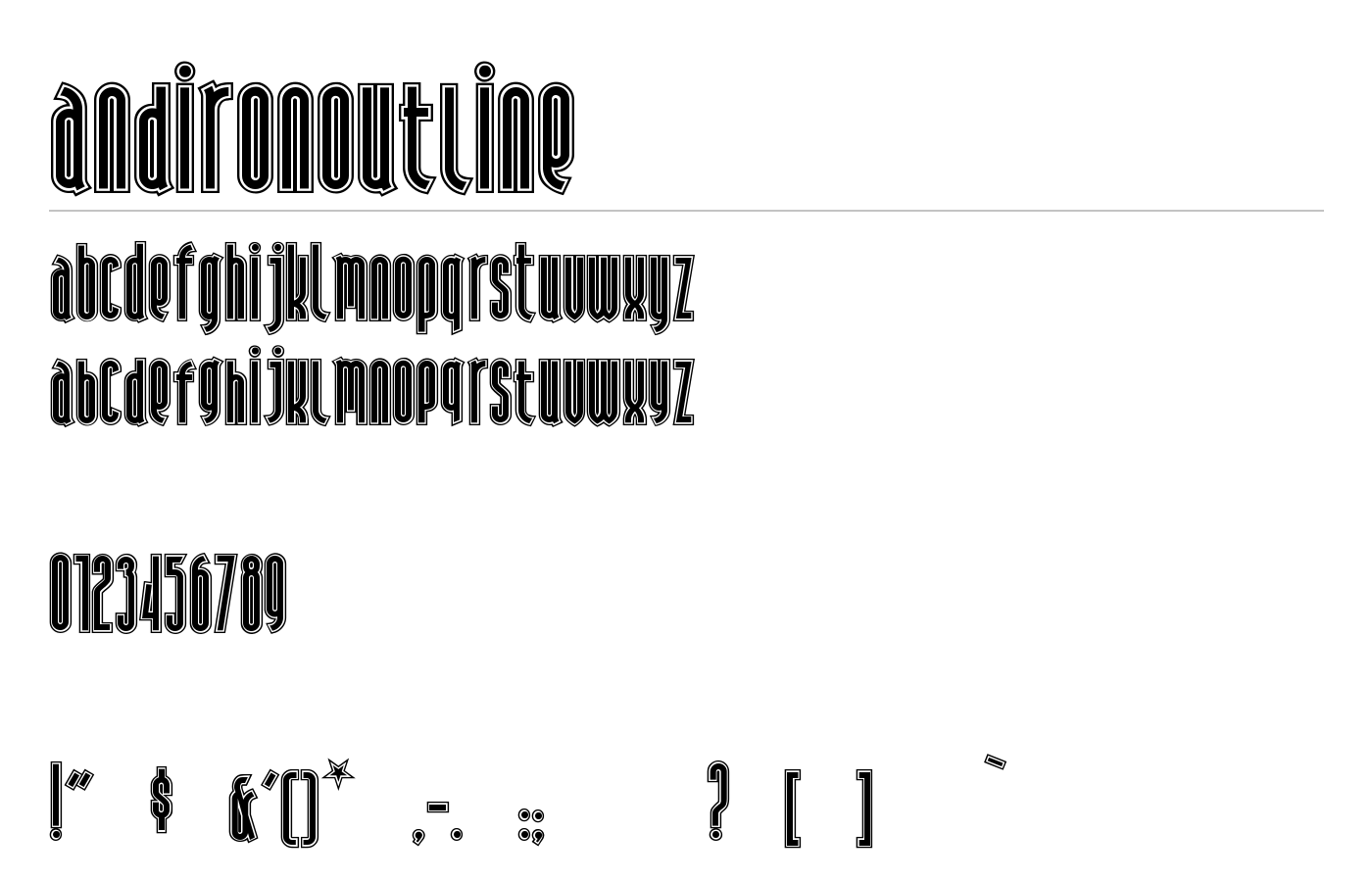
AndironOutline is a narrow, tall sans serif font with a bold outline style that gives it a striking, retro feel. Its condensed letterforms and high contrast between the thick inner strokes and thin outer lines create a distinctive display look, making it ideal for eye-catching headlines, logos, and vintage-inspired designs. This font works well when you want a dramatic, stylish impression that stands out with elegance and personality.
AndironOutline Font